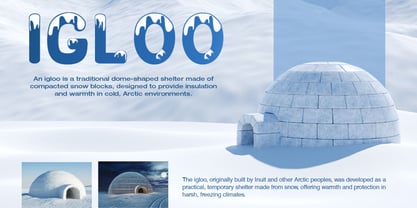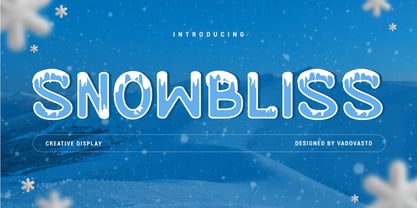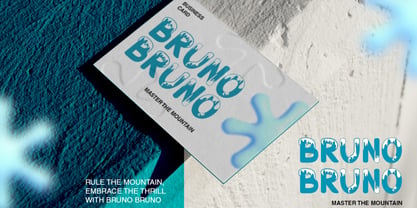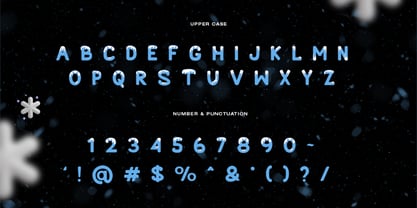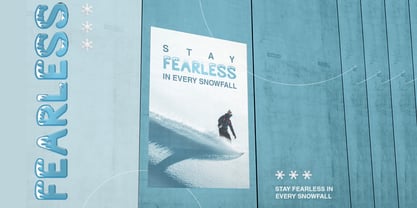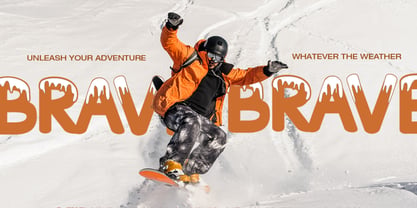
Snowbliss
The Snowbliss Font Family was designed by and published by Vadova Std. Snowbliss contains 1 styles. More about this family
Elevate your designs with Snowbliss Creative Display Font, a modern font perfect for adding elegance and style to your projects. Whether it’s for quotes, logotypes, magazine headers, or more, this versatile typeface ensures your text stands out beautifully.